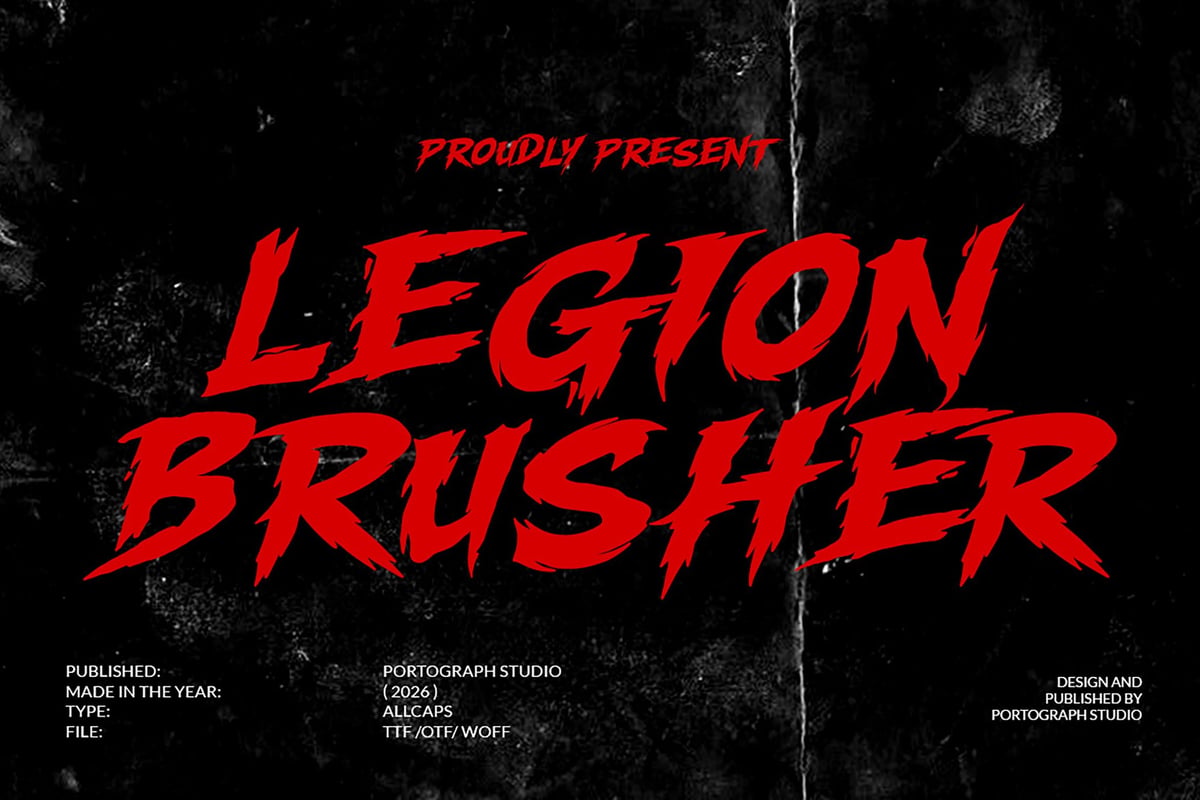
Legion Brusher - Horror Font
Unleash raw rebellion with Legion Brusher - the bold brush font that screams punk culture and underground attitude. This aggressive display typeface channels the rebellious spirit of street aesthetics through sharp strokes, rough textures, and expressive hand-painted energy. Every character delivers powerful visual impact that commands attention and refuses to be ignored. Package includes: OTF format TTF format WOFF2 format Key features: Uppercase (ALL CAPS) characters Ligatures for ...